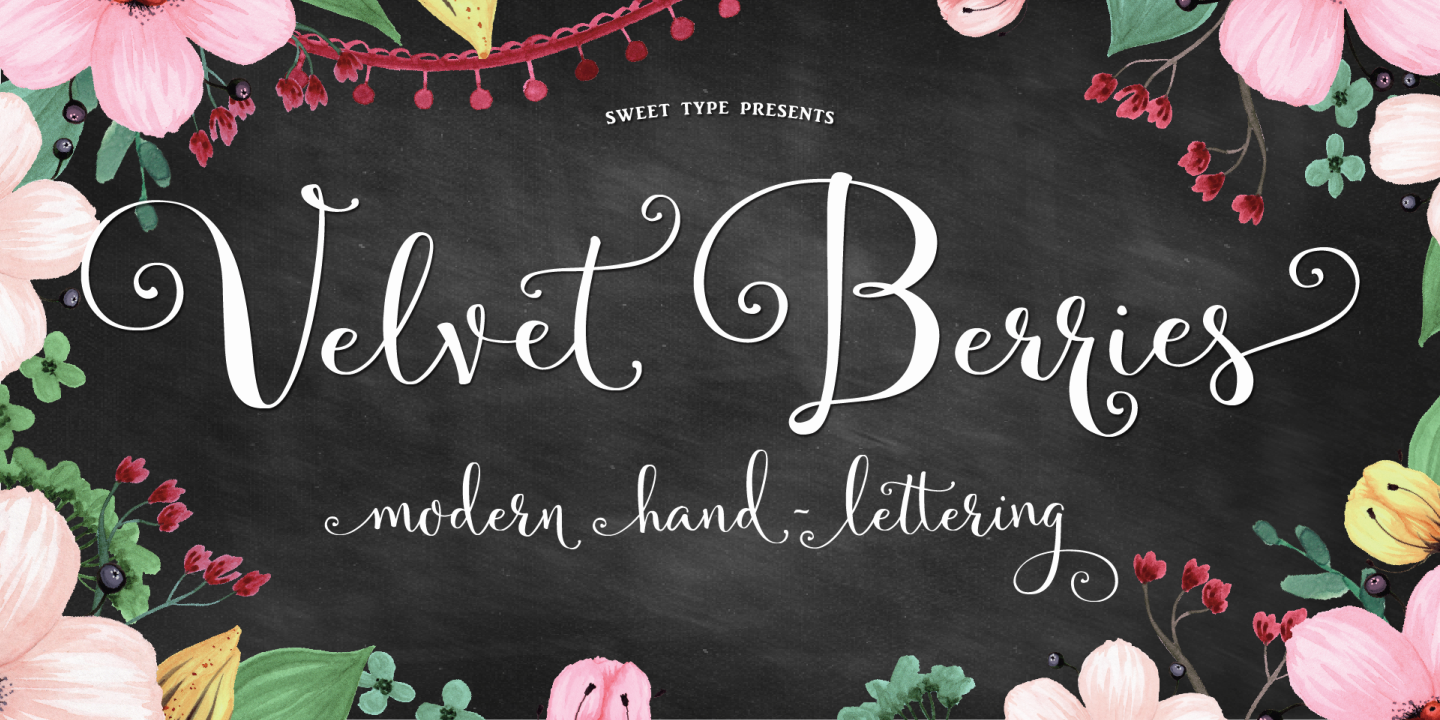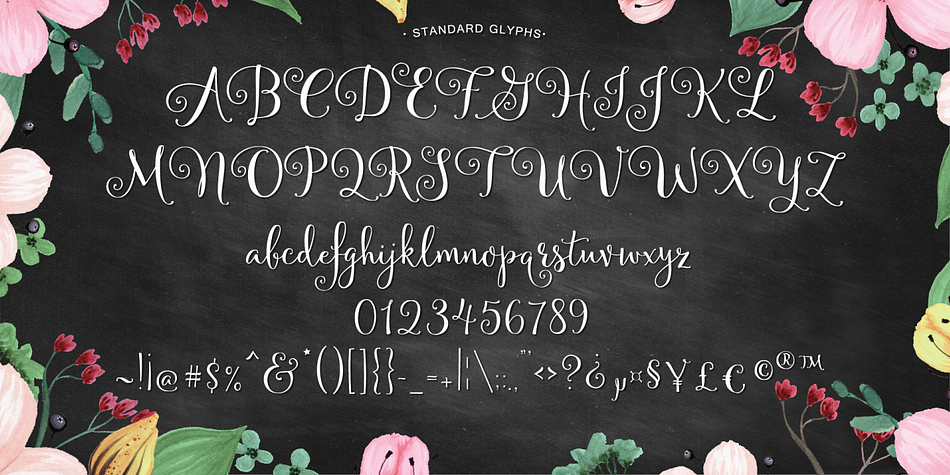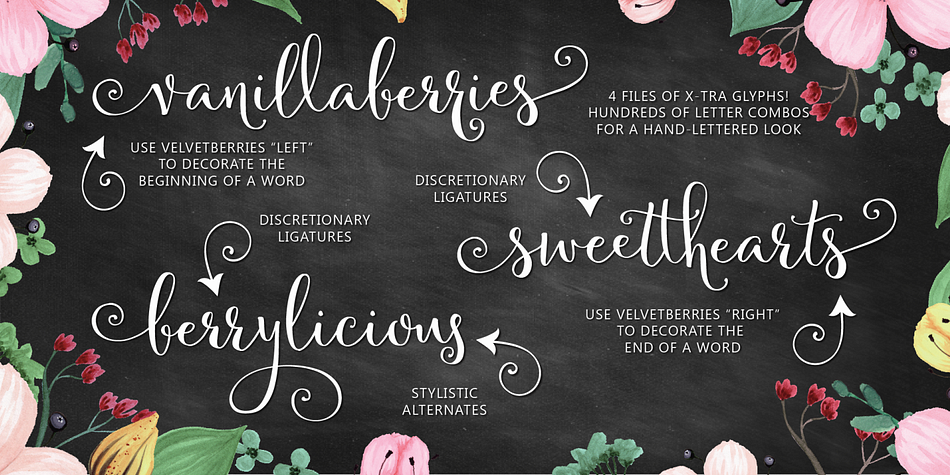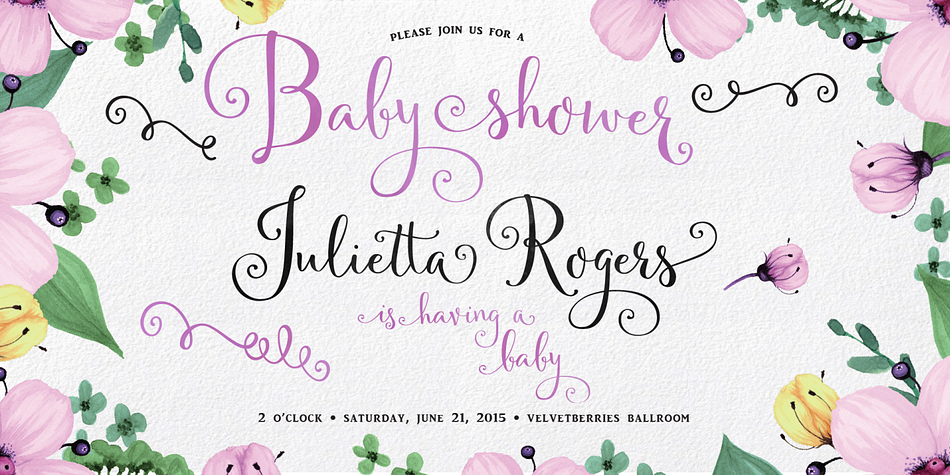
Designed by Emily Spadoni, Velvet Berries is a modern calligraphy font family. This typeface has five styles and was published by Emily Spadoni.
Introducing Velvetberries! A modern spin on classic hand-lettered calligraphy. Warm inviting characters you’ll use through all seasons, weddings, showers, logos, holidays and more!
You’ll have so much fun creating your own hand-lettered text styles. The combinations of sweet swirly letters are endless.
Double Bonus!! 2 variations of “Left” and 2 variations of “Right” characters. Tons of common letter combos.
In total - 4 added files of additional decorative glyphs, many additional common letter combinations, and even the multi-lingual glyphs are all decorated. Use “Left” and “Right” to create your own decorated word styles. In total hundreds of swirly letter combinations, creating an authentic hand-made, hand-lettered style text. (Please click the link above)
It’s super easy to use. Just highlight the letter you want to change and choose Left or Right. Many of the alternates have swirls that dip below the baseline and will fit nicely in the middle of the words. too! ALT-files work the same way. Just highlight the letter and choose the alternate key from the file of choice.